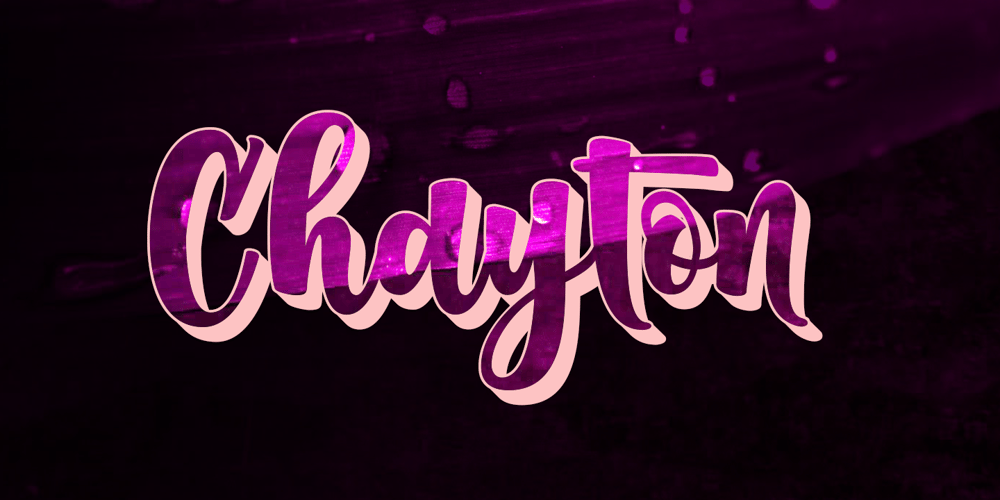
Chayton Font Family was designed by Ront Jorse and published by Jorsetype. Chayton contains 2 styles and family package options. Chayton is the font style handmade dancing and then live trace to have unique, the writing style is very natural. Chayton works great in any branding, logos, magazines, films. The different weights give you a full range of whole hosts of applications, while the outlined fonts give a real modern feel to any project.Chayton also comes with extra Extruded and Outline Font versions. as a function to create an extrusion effect for this font.The Features of this fonts is; Standart ligatures, Stylistic Alternates, Stylistic sets, PUA Unicode (Private Use Areas), OpenType features can be accessed by using OpenType smart programs such as Adobe Photo Shop, Adobe Illustrator, Adobe Indesign, Corel Draw and Microsoft Office.. can also be accessed through the character map.